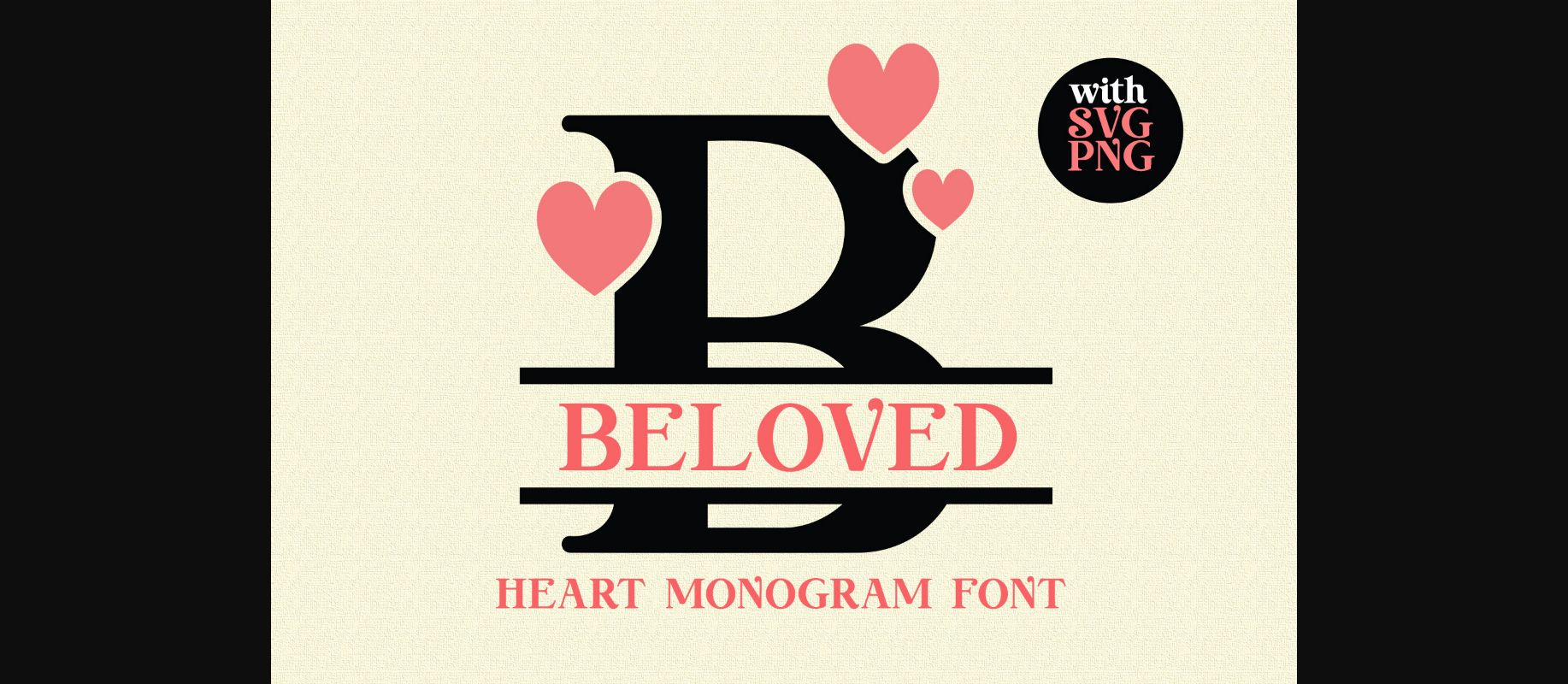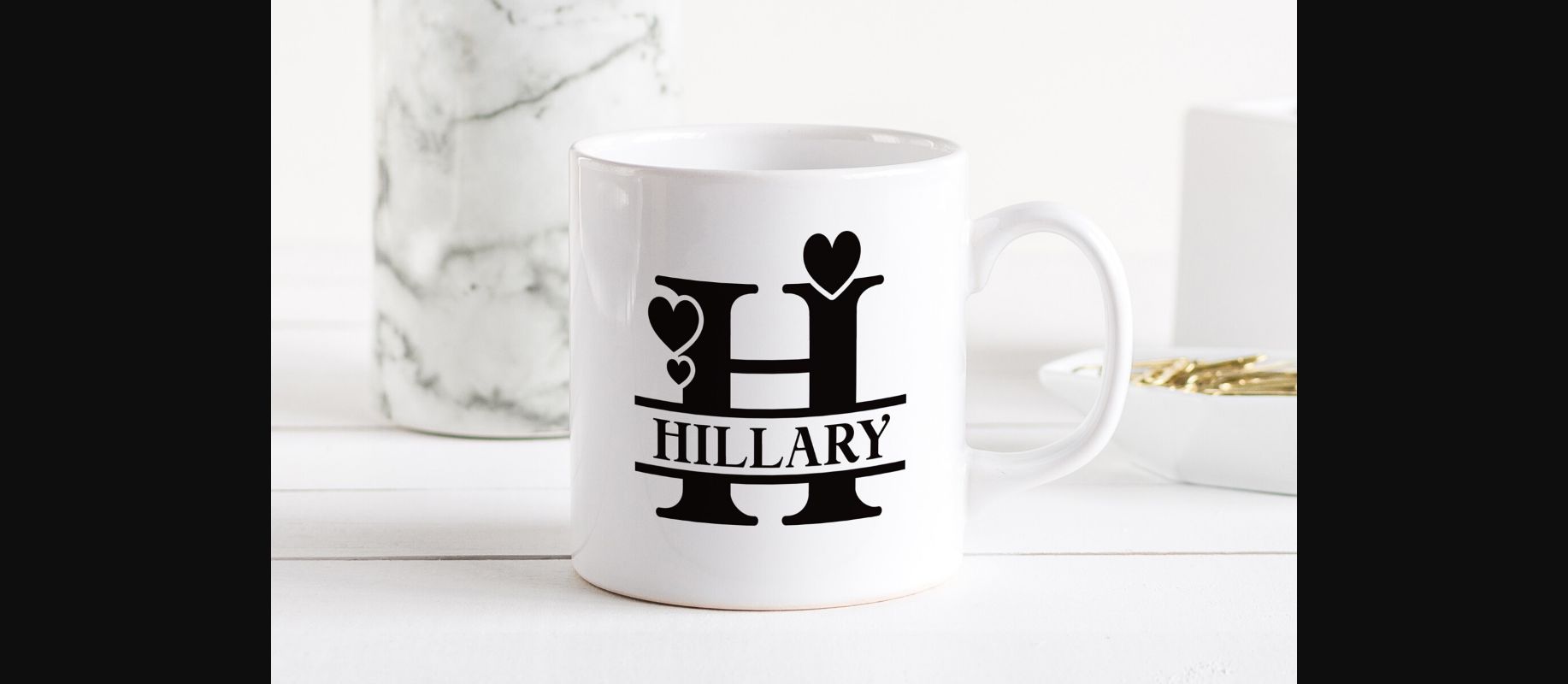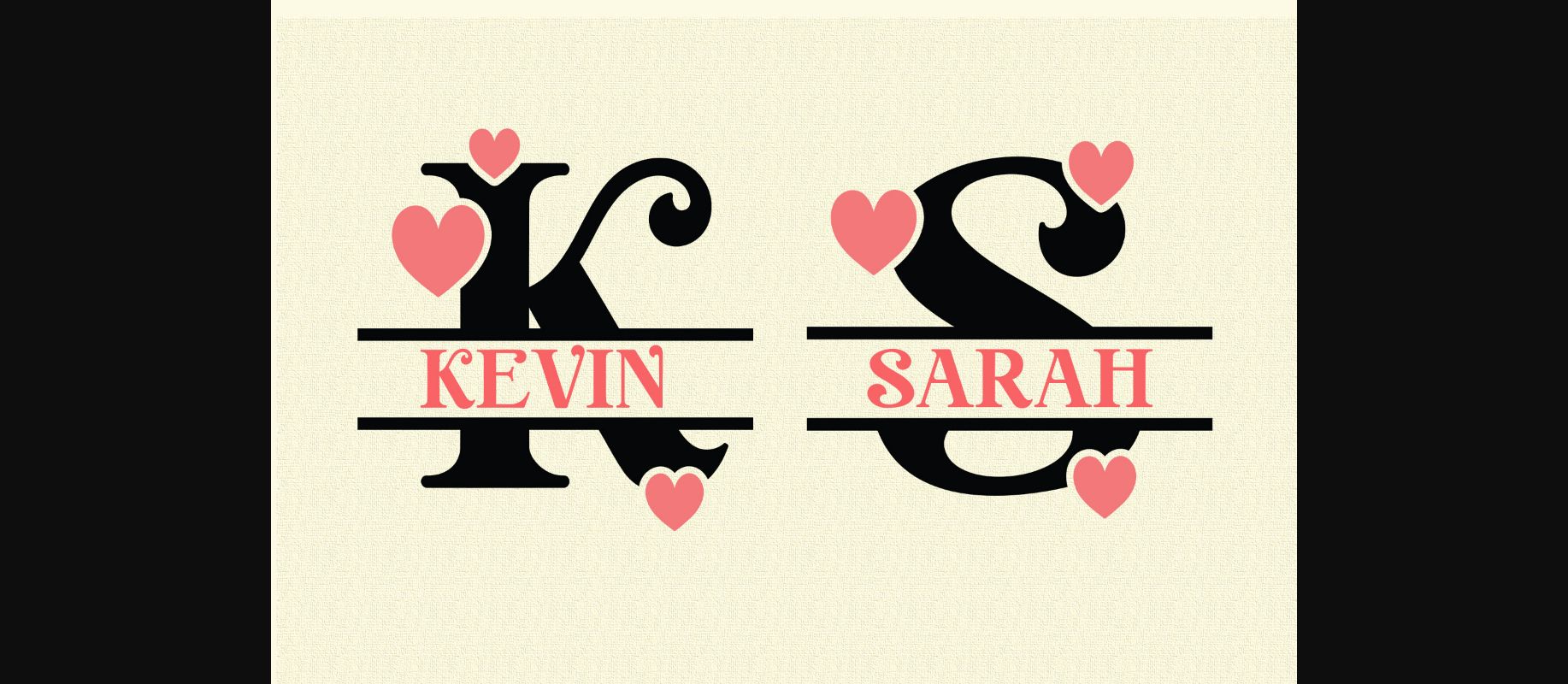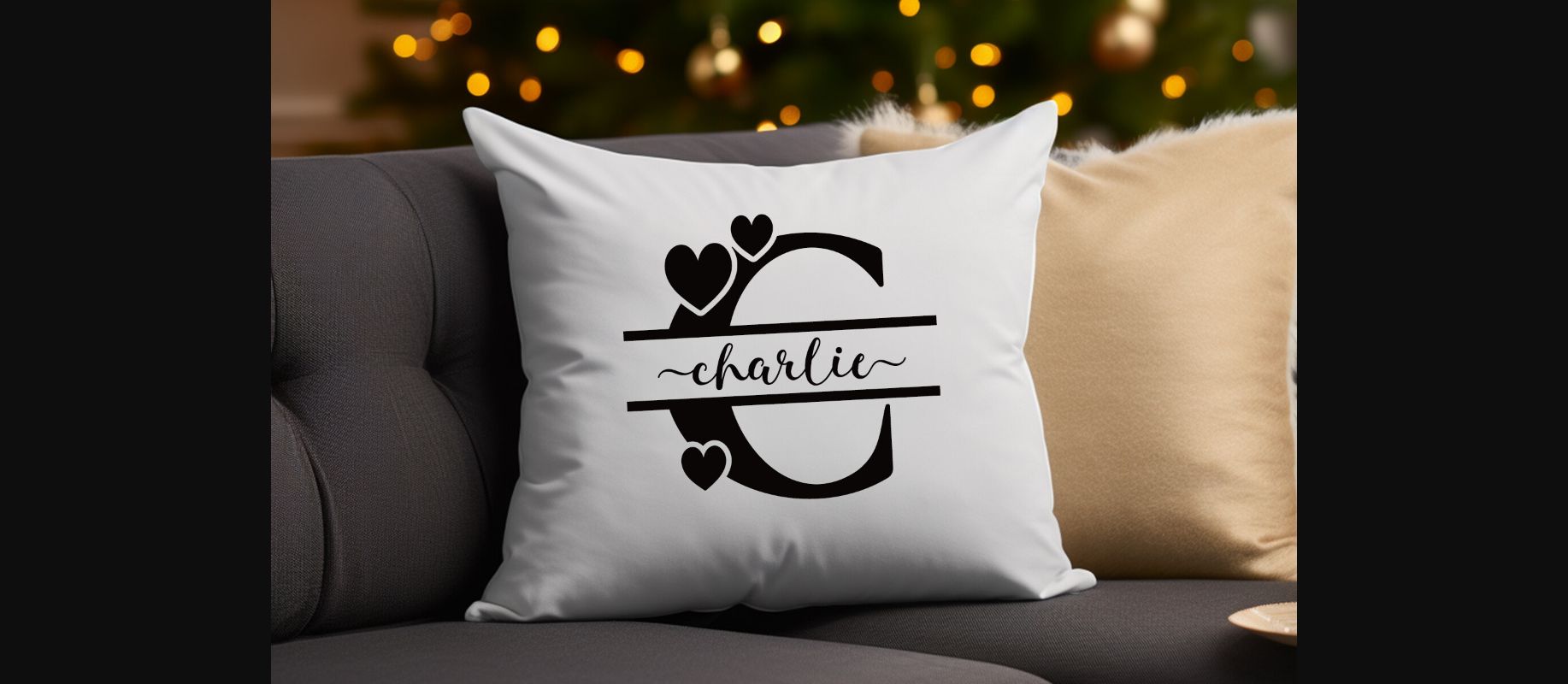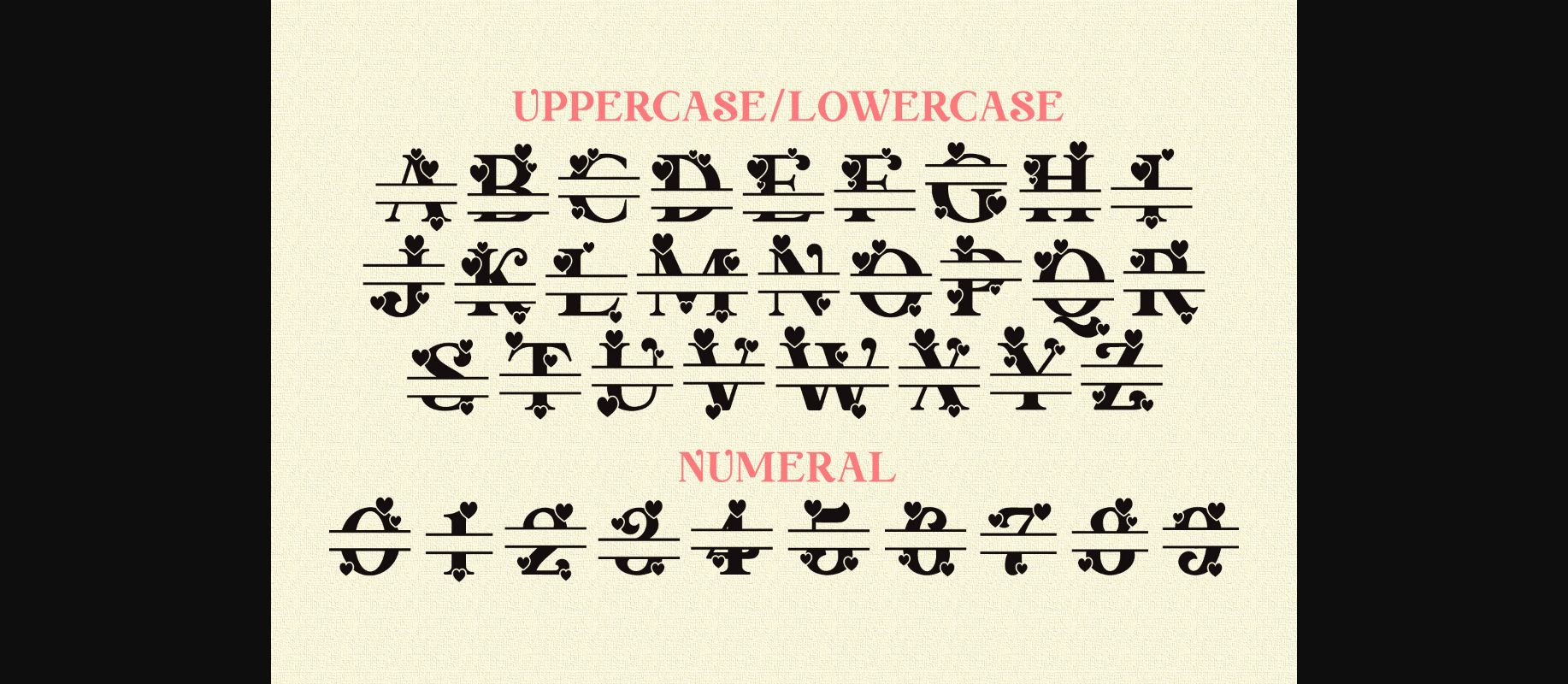
About Beloved Monogram Font
Beloved Monogram is split alphabet serif font with heart accent. It is simple, elegant, and pretty.
This monogram font can be used for wide ranges of design, especially that needs romantic and elegant vibes, such as wedding design, valentines day, crafting, sublimation, name sign, family sign, decoration, and others.